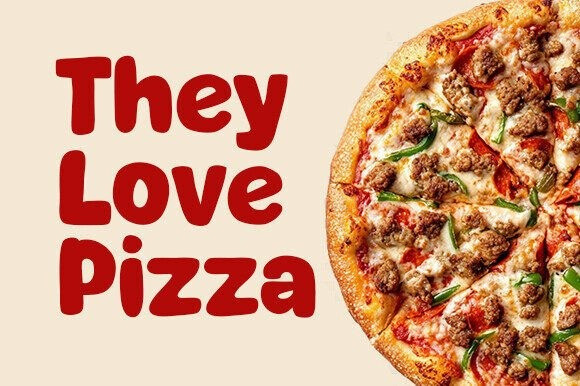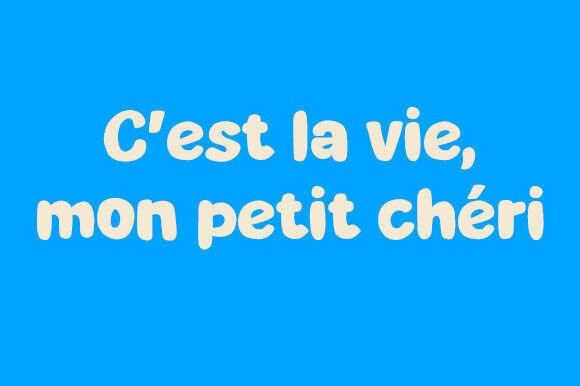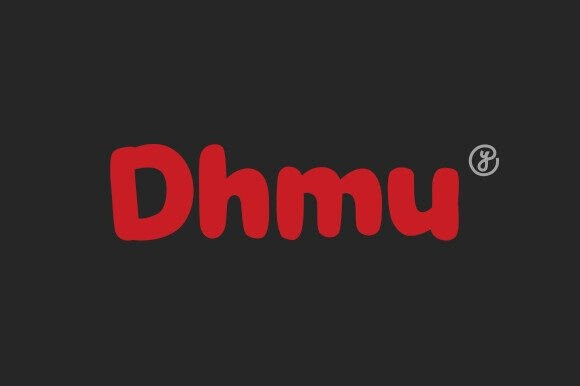
Dhmu Playful Font
Dhmu Playful Font a striking new typeface inspired by the modern slang acronym “Don’t Hit Me Up.” Designed for those who value boundaries, boldness, and unapologetic self-expression, DHMU Font is more than just a font—it’s an attitude. With its clean lines, assertive strokes, and minimalist aesthetic, this font embodies the spirit of confidently setting limits while staying effortlessly stylish.
DHMU Font is crafted to reflect the no-nonsense, straightforward vibe of its namesake. Whether you’re creating content that says “leave me alone” or simply want to add a touch of edgy minimalism to your designs, DHMU Font delivers. It’s perfect for projects where clarity meets confidence—just like the phrase it represents.
DHMU Font features sleek, geometric shapes that exude simplicity and sophistication. Its uniform weight ensures readability across all mediums, from social media posts to branding materials.
Each character in DHMU Font has been carefully designed with sharp edges and deliberate spacing, giving off a strong yet approachable vibe. Think of it as the typographic equivalent of saying “I’m here, but don’t push it.”
While rooted in the concept of boundary-setting, DHMU Font is incredibly versatile. Use it for bold headlines, impactful quotes, bio captions, posters, or even logos. It works equally well for personal projects and professional campaigns.